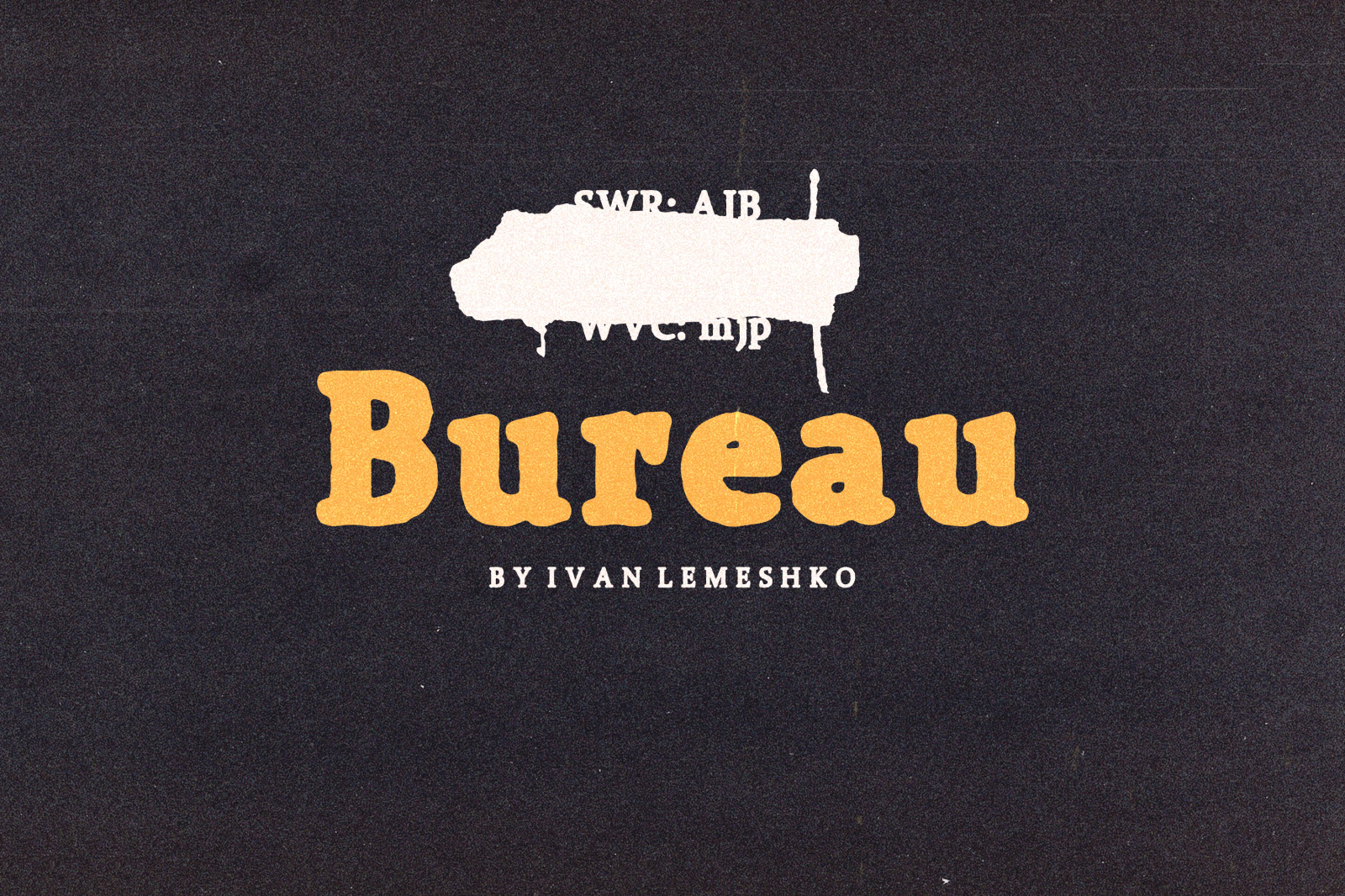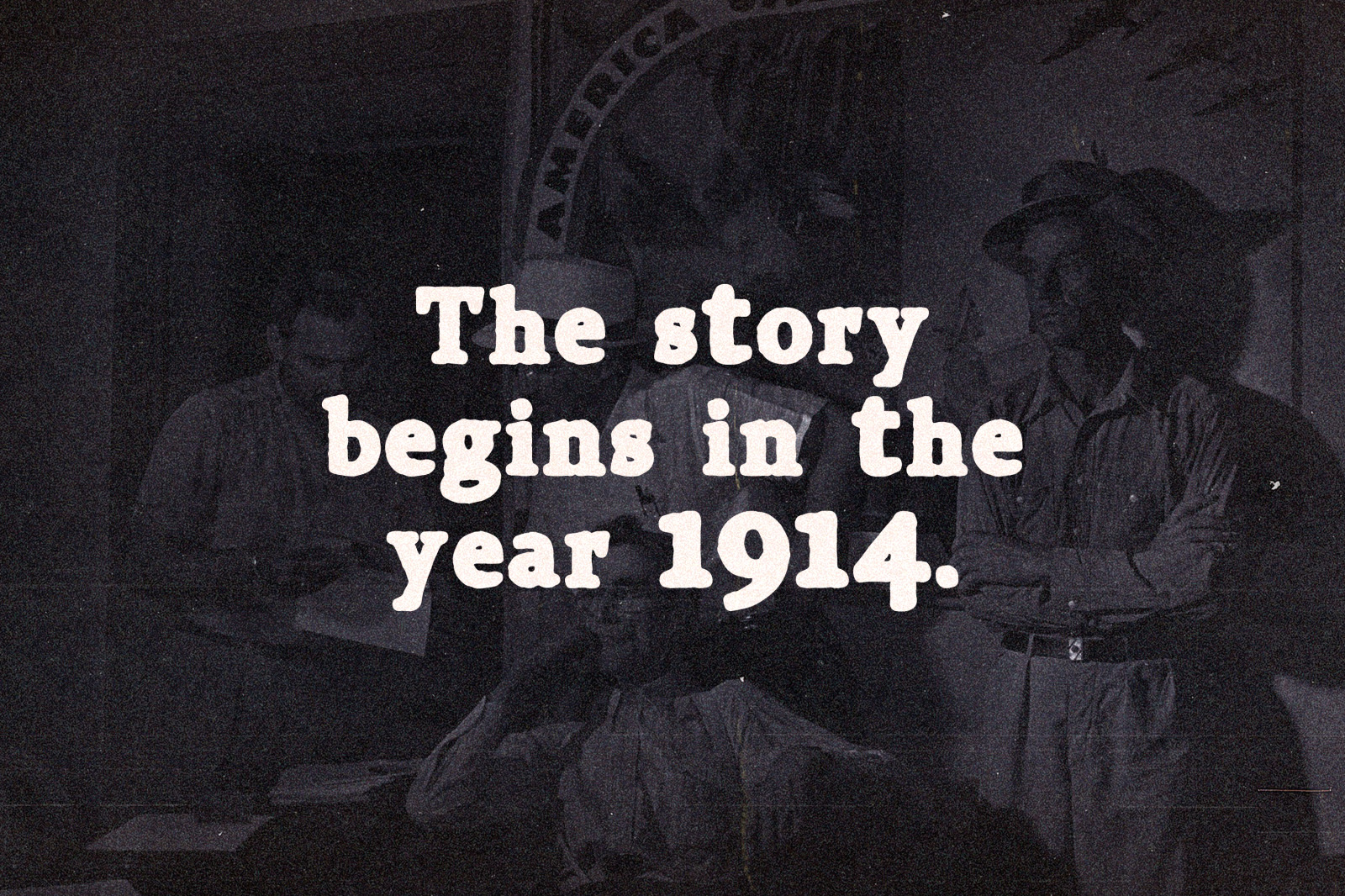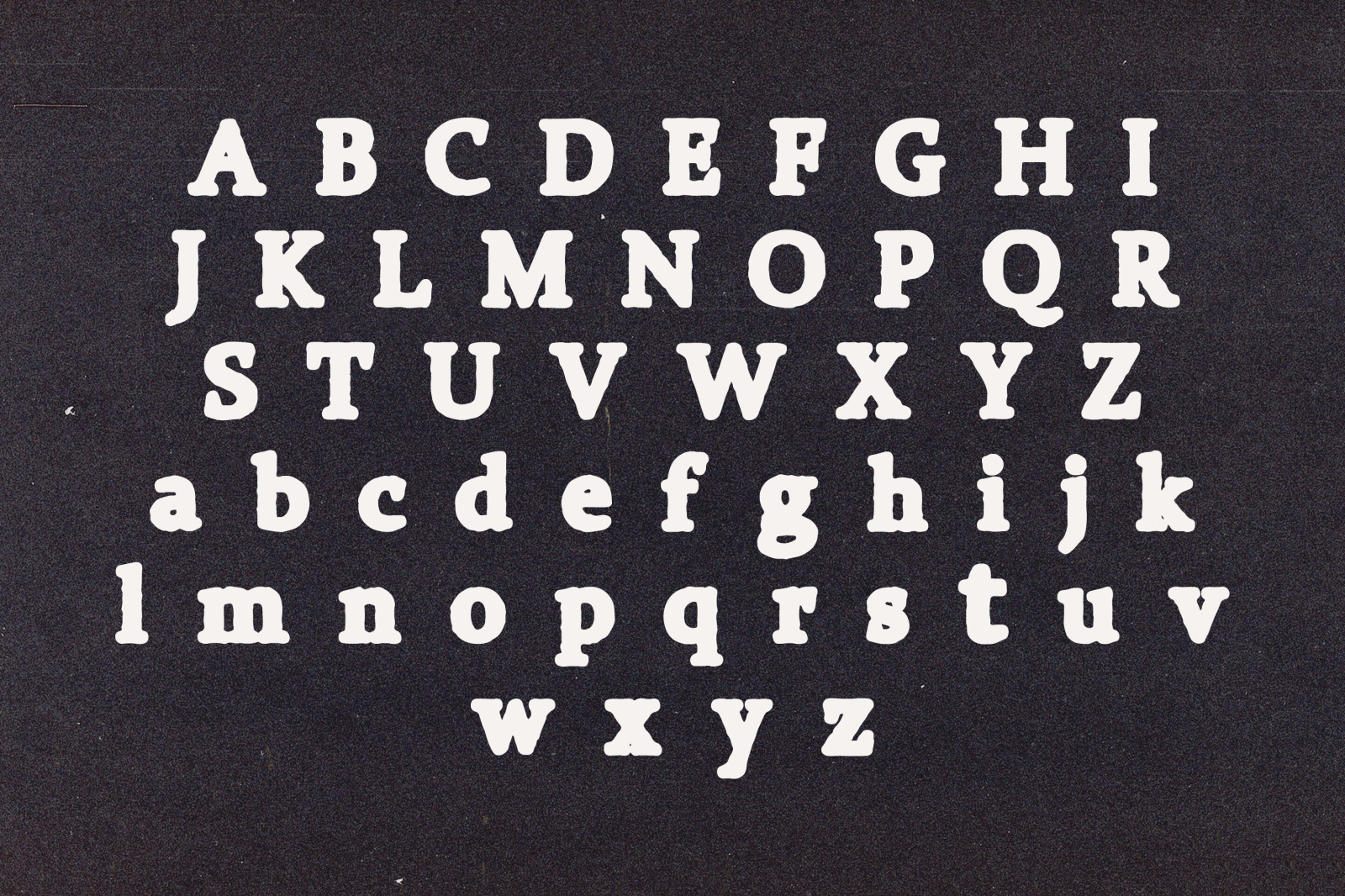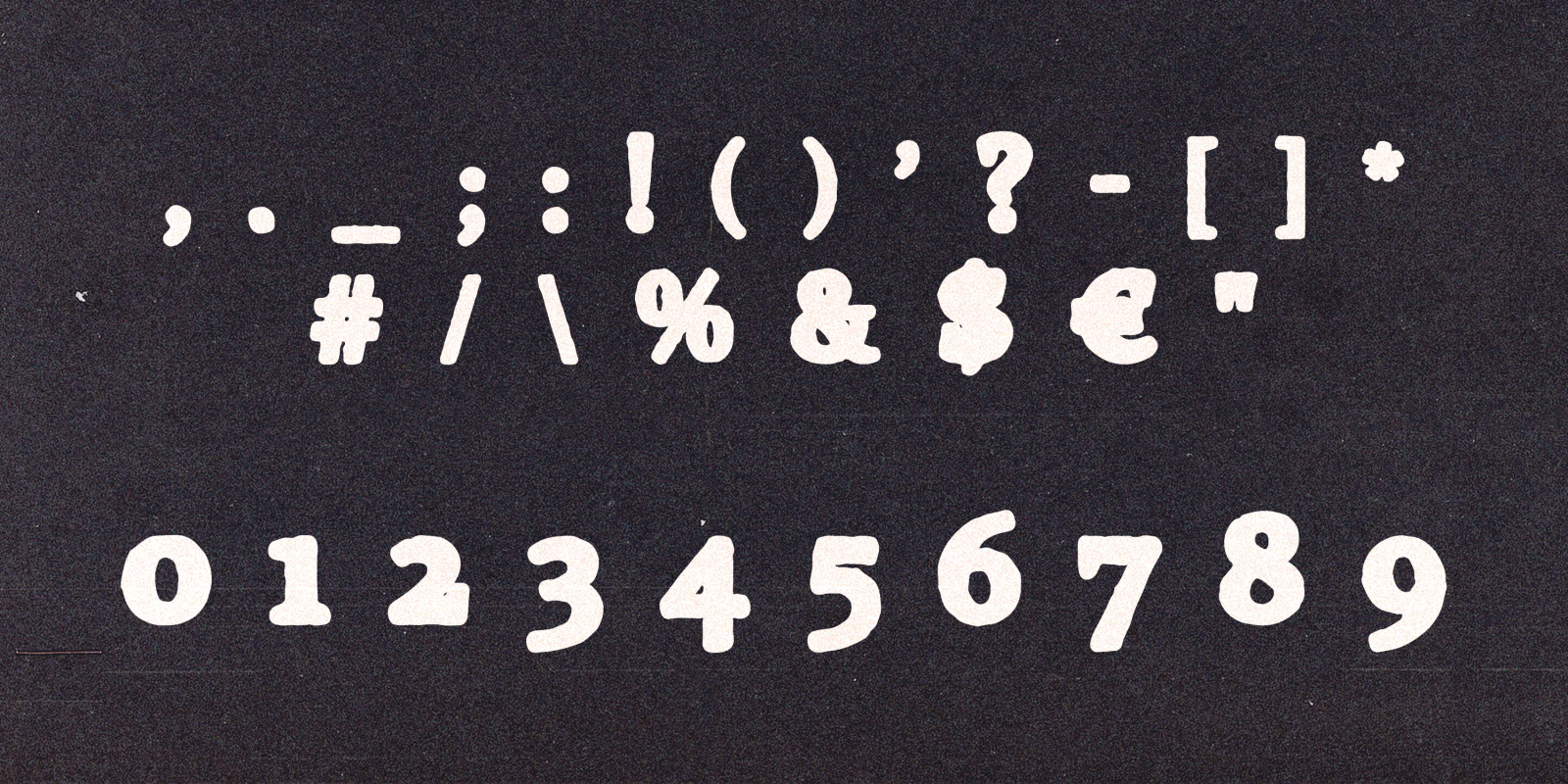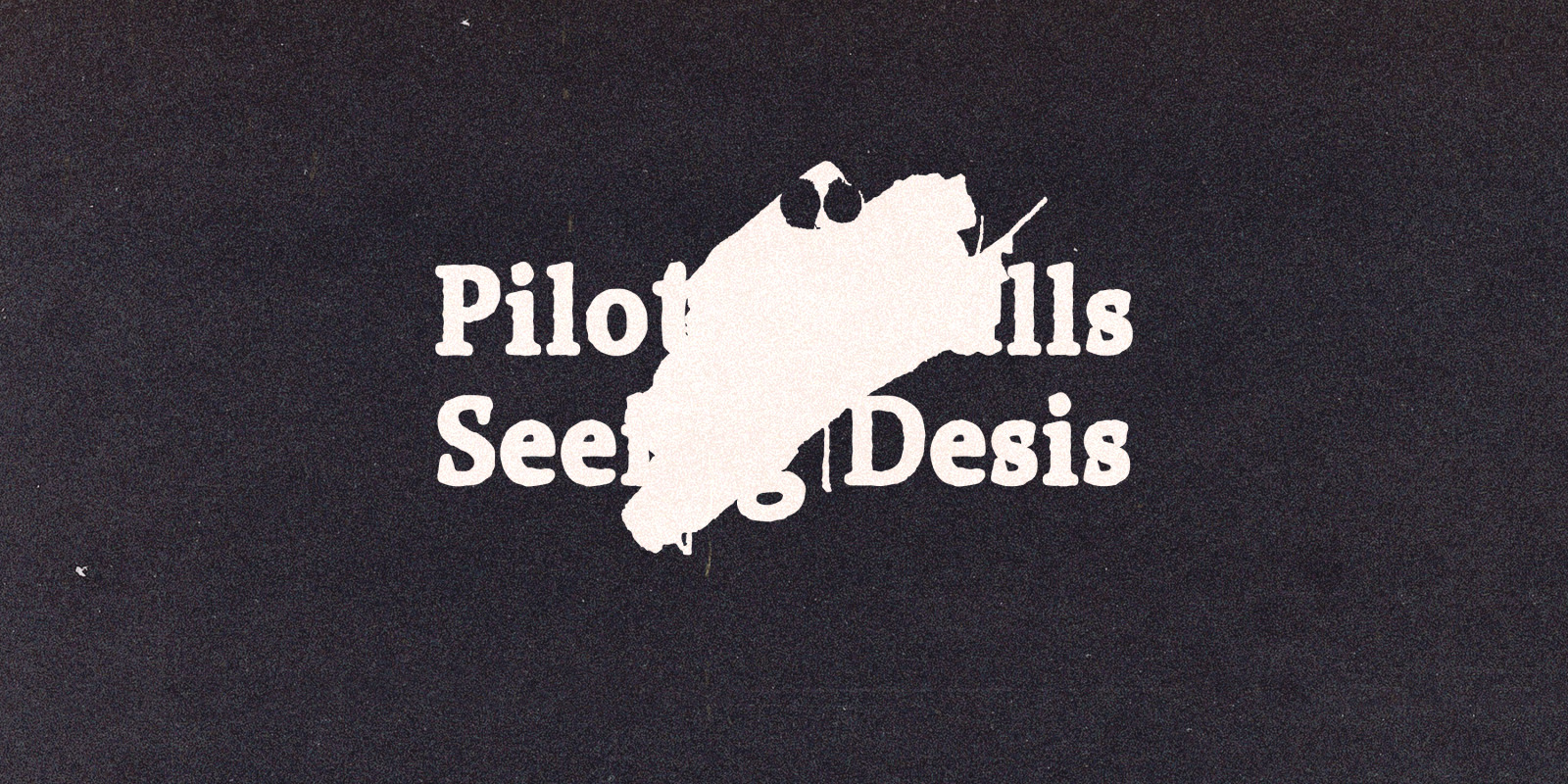
Bureau Font
I proudly introduce to you Bureau, a stunning font, very unique and BOLD. Can make it easier to convey the message in your design. Use for logo, labeling, clothing, movie screen, poster, movie title, gigs, album covers, logos, and much more.